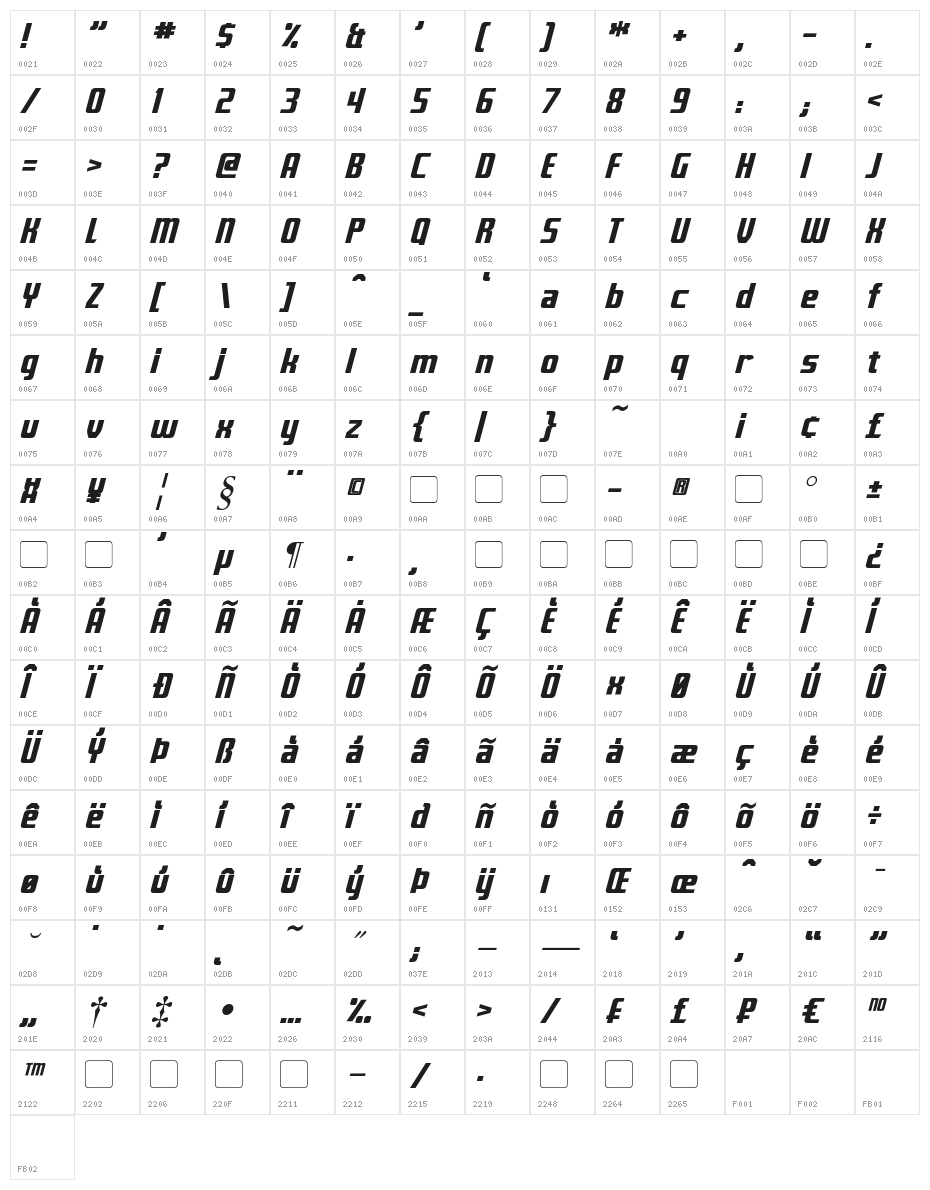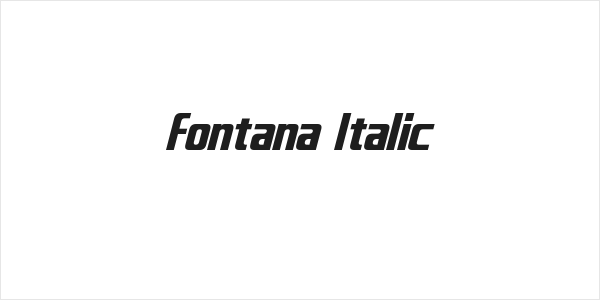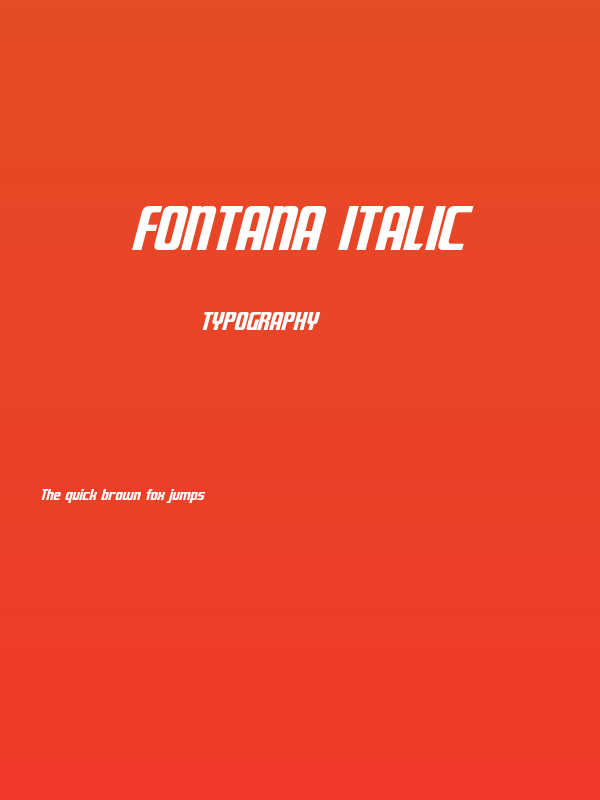
Fontana Italic Font
Fontana Italic Description
This font exhibits a bold and dynamic style with a distinct italic slant, giving it a sense of motion and energy. The characters are uniformly bold, with a consistent stroke width that contributes to its strong presence. The uppercase and lowercase letters maintain a cohesive design, with slightly condensed proportions that enhance readability while preserving a compact appearance. The numerals and special characters are crafted to match the overall aesthetic, ensuring a harmonious look across all text elements. This font's modern and assertive style makes it suitable for impactful design projects.
| Proposed Projects | Ideal for sports branding, dynamic posters, modern advertisements, and any project requiring a bold, energetic typeface. |